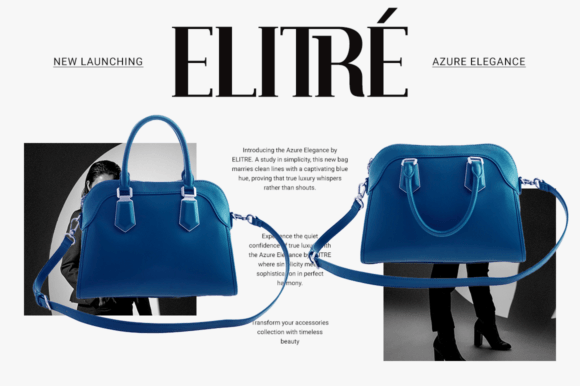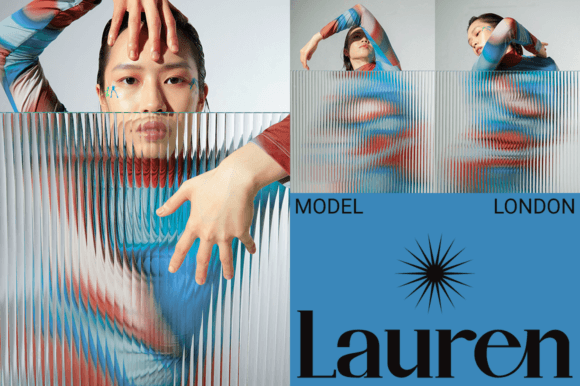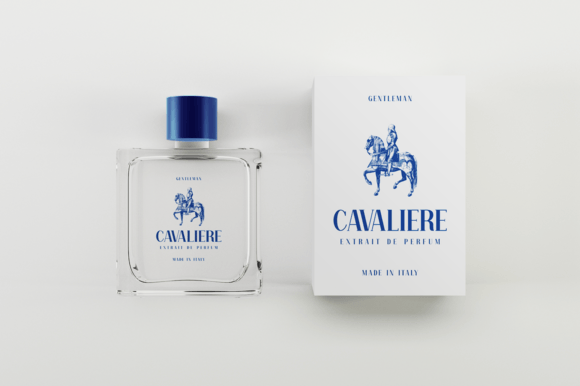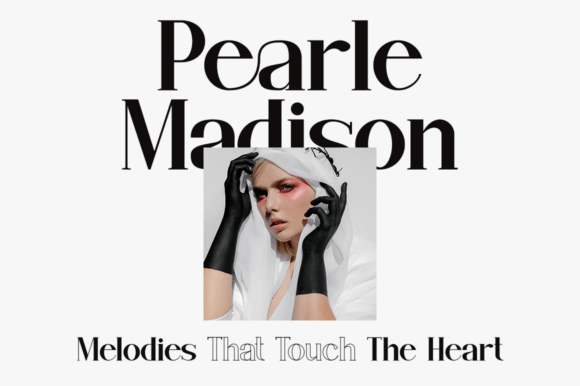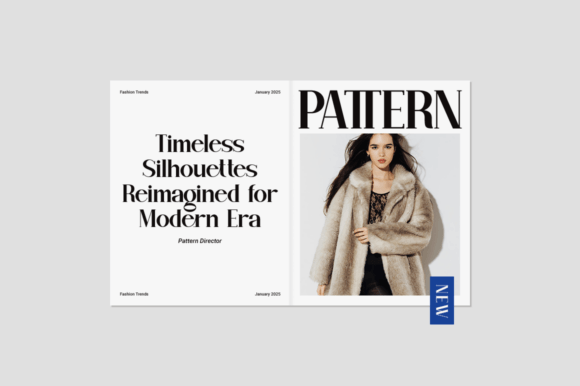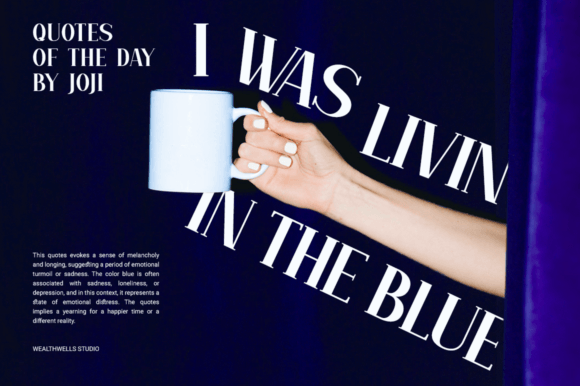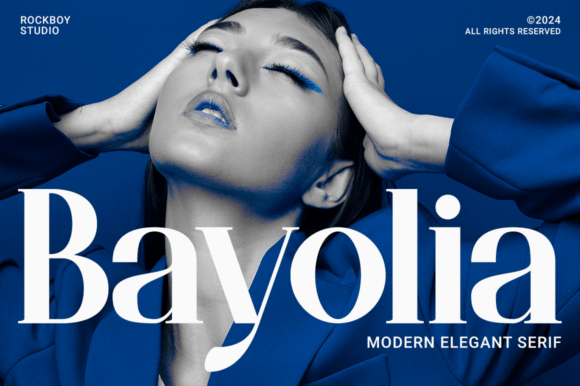
Introducing Bayolia Font: Elevate Your Designs with Elegance and Authenticity
Bayolia is a distinct, elegant, and authentic serif font that has been masterfully designed to become a true favorite among designers and crafters. With its unique charm and versatility, Bayolia has the potential to bring each of your creative ideas to the highest level. In this article, we’ll dive into the world of Bayolia Font, exploring its features, benefits, and uses, and why it’s a must-have for anyone looking to elevate their designs.
The Story Behind Bayolia Font
Bayolia Font is a carefully crafted serif font that exudes elegance and sophistication. Its design is rooted in traditional typography, yet it boasts a modern twist that sets it apart from other fonts in its category. The creators of Bayolia have poured their hearts and souls into designing a font that is not only visually stunning but also highly versatile, making it perfect for a wide range of design applications.
Key Features of Bayolia Font
- Distinct and Elegant Design: Bayolia’s serif design is both classic and contemporary, making it suitable for projects that require a touch of sophistication.
- Authentic Feel: The font’s authentic feel makes it perfect for designs that require a human touch, such as branding, packaging, and advertising.
- Highly Versatile: Bayolia can be used for a variety of design projects, from print materials like brochures and posters to digital applications like websites and social media graphics.
- Easy to Read: The font’s clear and readable design ensures that your message is conveyed effectively, making it ideal for body text and headings.
Benefits of Using Bayolia Font
So, why choose Bayolia Font for your design projects? Here are just a few benefits of using this exceptional font:
- Stand Out from the Crowd: Bayolia’s unique design ensures that your work stands out from the crowd, grabbing the attention of your audience and leaving a lasting impression.
- Elevate Your Brand: With Bayolia, you can create a cohesive brand identity that exudes elegance and sophistication, helping you to establish a strong brand presence.
- Save Time and Effort: Bayolia’s versatility and ease of use save you time and effort, allowing you to focus on other creative aspects of your project.
Uses of Bayolia Font
Bayolia Font is perfect for a wide range of design applications, including:
- Branding and Identity: Create a lasting impression with Bayolia’s elegant and authentic design.
- Print Materials: Use Bayolia for brochures, posters, business cards, and other print materials that require a touch of sophistication.
- Digital Applications: Bayolia is perfect for websites, social media graphics, and other digital applications where readability and style are crucial.
- Packaging and Advertising: Make your product stand out with Bayolia’s unique and eye-catching design.
In conclusion, Bayolia Font is a game-changer for designers and crafters looking to elevate their designs with elegance and authenticity. Its unique charm, versatility, and ease of use make it a must-have font for anyone looking to create stunning designs that leave a lasting impression. Whether you’re working on a branding project, print materials, or digital applications, Bayolia Font is the perfect choice to bring your creative ideas to the highest level.